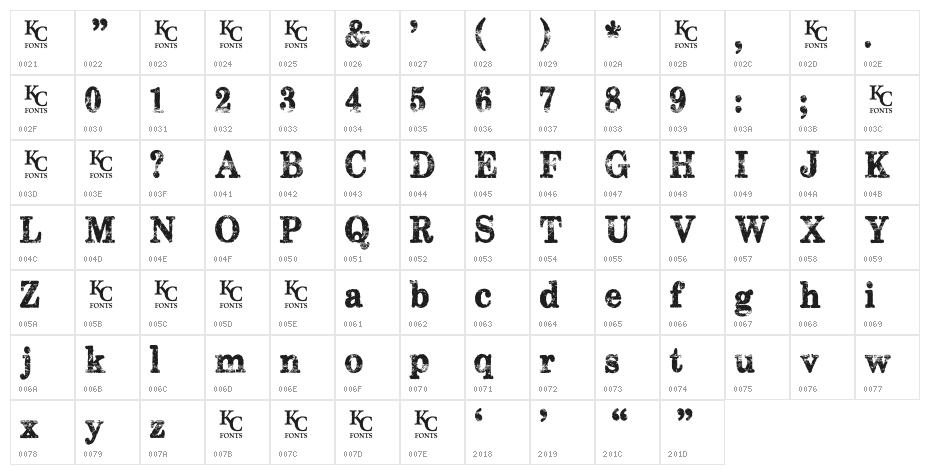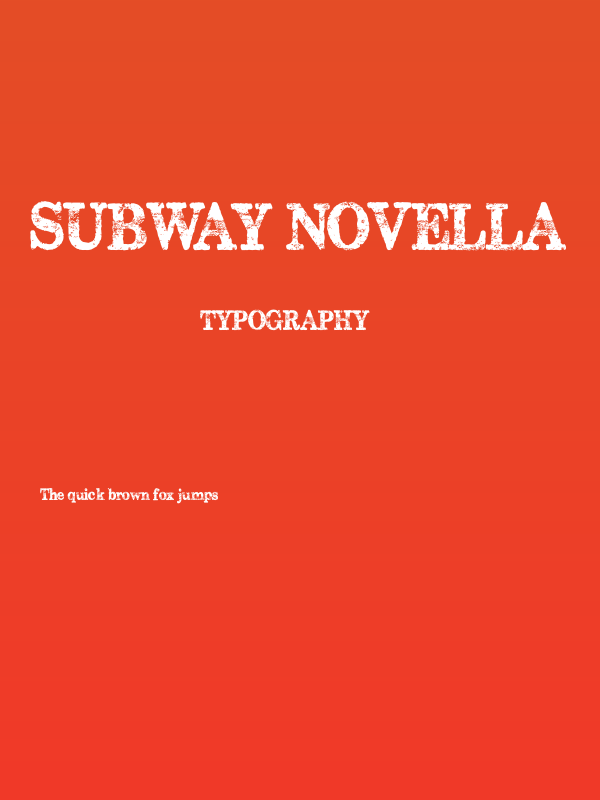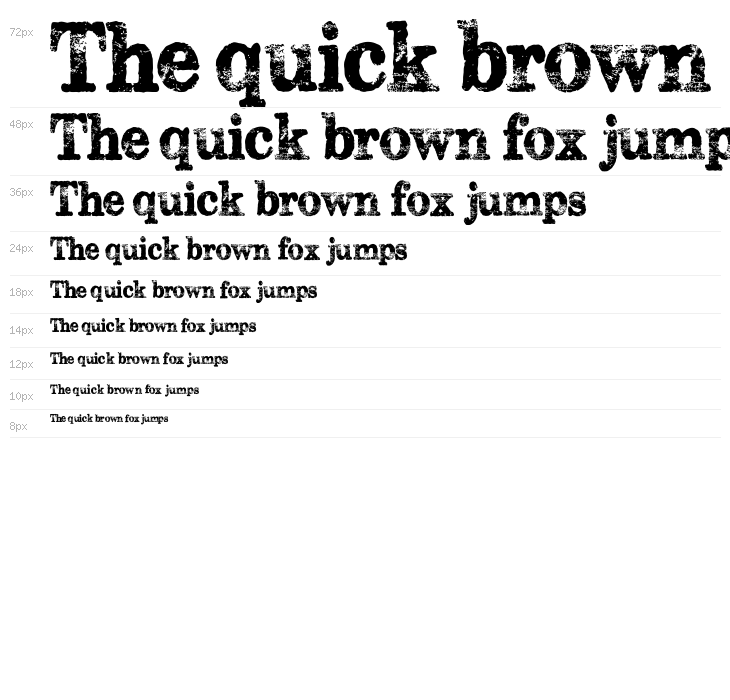
Subway Novella Font
Subway Novella Description
This font features a bold, distressed style with a textured, grunge appearance. The characters are bold and have a rough, worn-out look, giving them a vintage and rugged feel. The uppercase and lowercase letters maintain a consistent style, with the texture adding a unique character to each letter. The numbers and special characters follow the same distressed pattern, making the font cohesive throughout. This font is perfect for projects that require a strong, impactful visual presence with a touch of nostalgia.
| Proposed Projects | Ideal for posters, album covers, branding, and any design needing a bold, vintage look. |